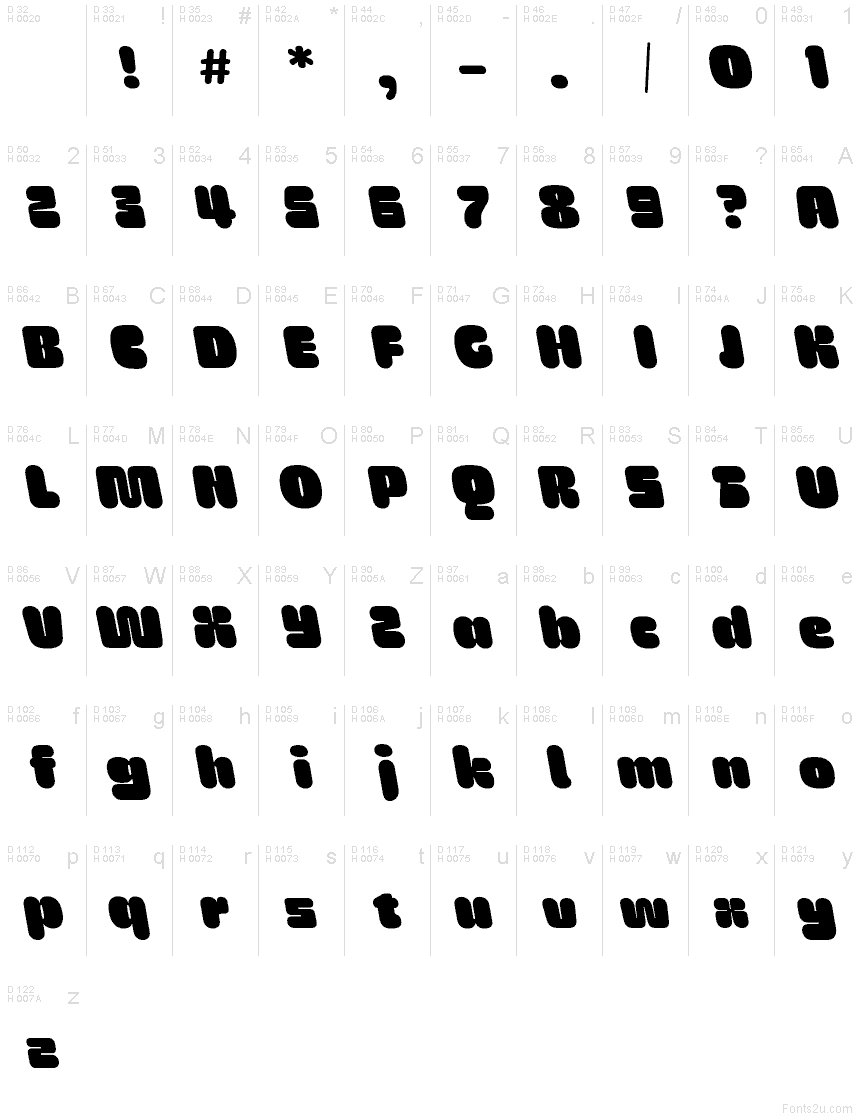
SG Wristan Backslant DEMO
SG Wristan Backslant font by Studio Gulden is a free groovy display typeface. Chunky, pill-shaped letters lean backwards with a playful swagger, like bubble lettering caught in a breeze. The weight is generous, the corners are soft, and the rhythm feels bouncy yet steady, giving bold headlines a juicy, inky presence without turning messy. As part of the SG Wristan family, it brings a confident retro vibe that reads fast and hits hard.
Using SG Wristan Backslant, you’ll get instant character for music posters, party flyers, snack or beverage packaging, kids’ brands, sticker logos, and social headers. The compact spacing creates dense, punchy wordmarks that pop in tight layouts and on merch. This free font shines at larger sizes; pair it with a clean geometric sans—or other SG Wristan family styles—for body copy to keep the groove grounded.